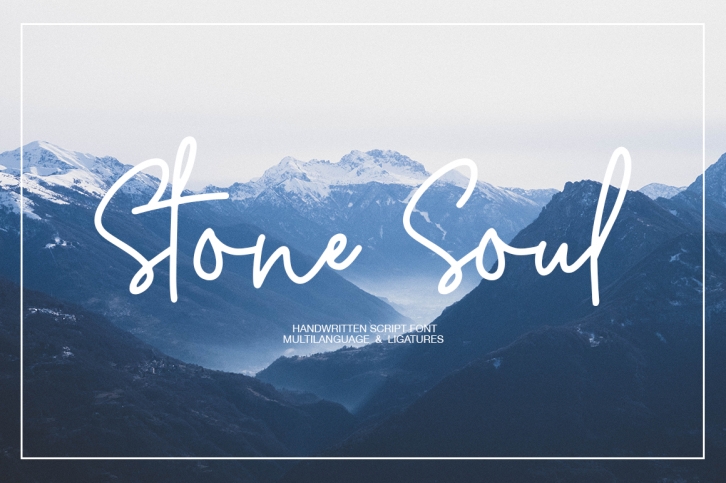
Stone Soul is a great font that was designed by Besttypeco. Imagine the amount of combinations you can create using this font! The archive is 13.37 MB and it was released on October 12, 2018. Stone Soul looks beautiful on wedding invitations, greeting cards, logos, posters, labels, t-shirt designs, logos, business cards and is perfect for use in ink or watercolor works, fashion, magazines, packaging and food menus, children's books and more!